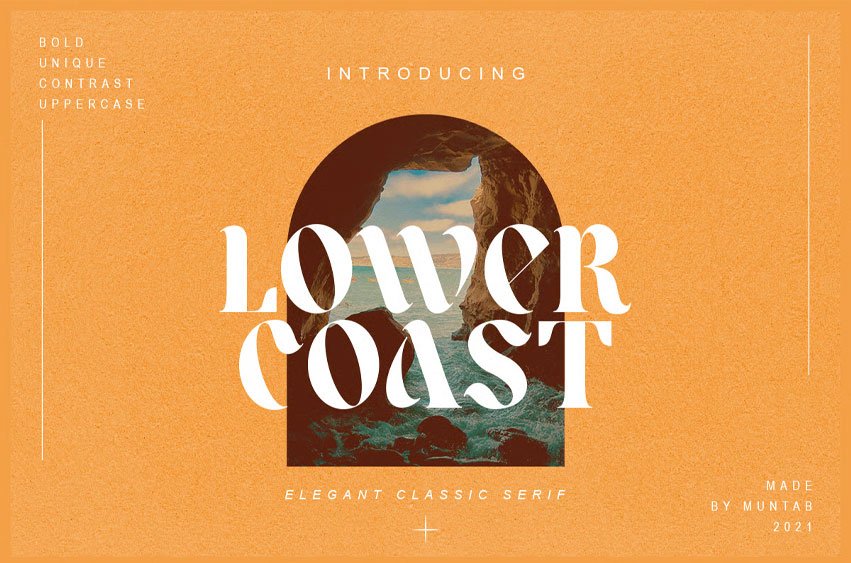
Lower Coast Font includes uppercase letters, numerals, and a large range of punctuation. Serif font with modern display style.
Created for posters, web design, branding, illustrations, badges, and some other works.